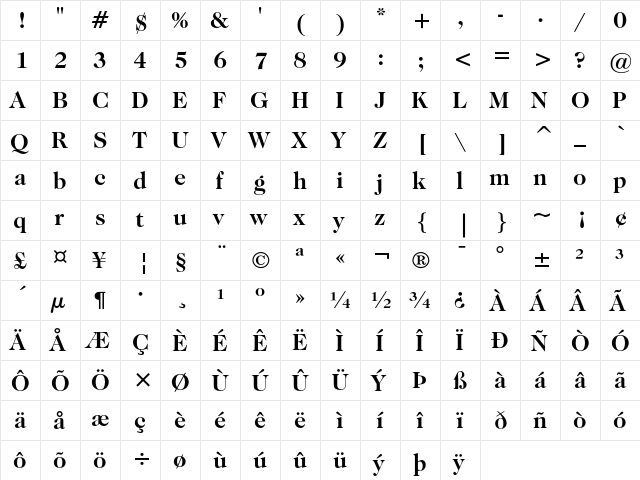
ITC Caslon No.224 Bold
Design Context for ITC Caslon No.224 Typeface
ITC Caslon No.224 takes a measured approach to typography — its balanced proportions and neutral character make it a reliable workhorse for both digital and print work. The heavy weight commands attention and anchors typographic hierarchies.